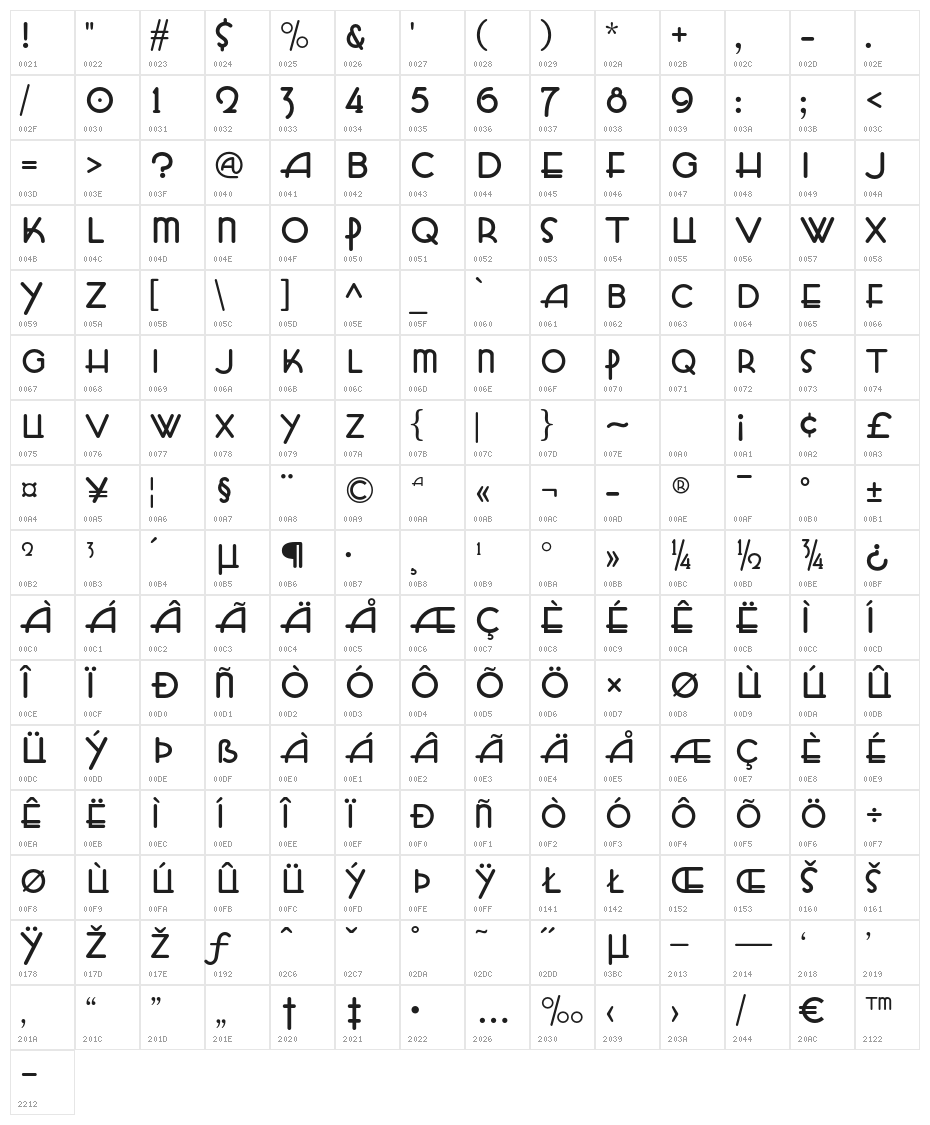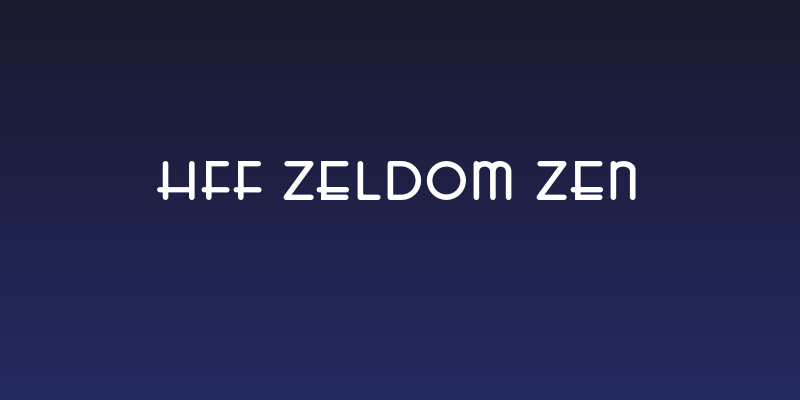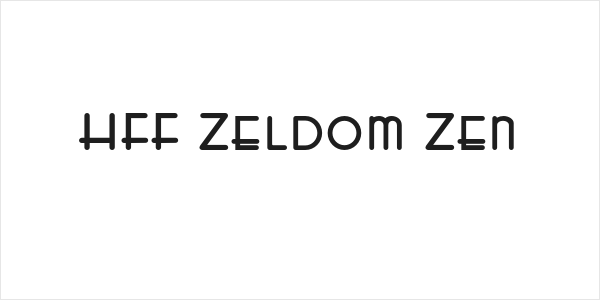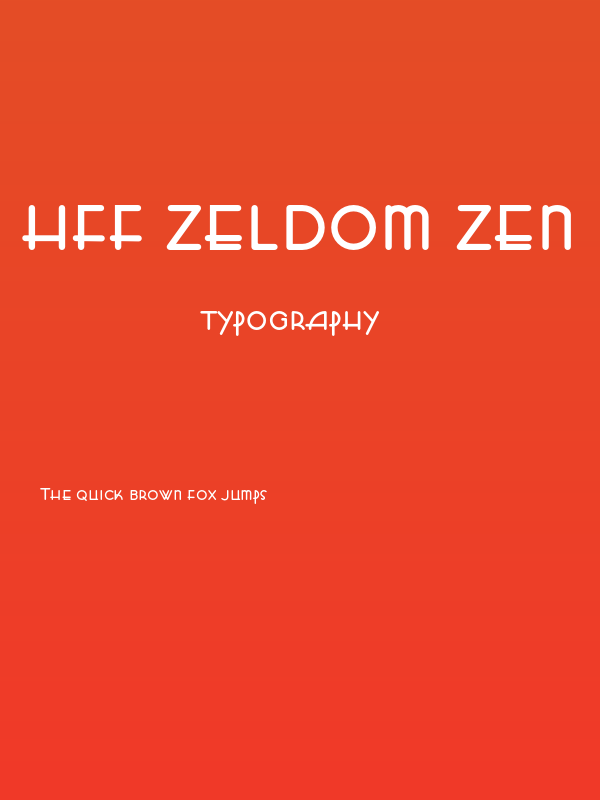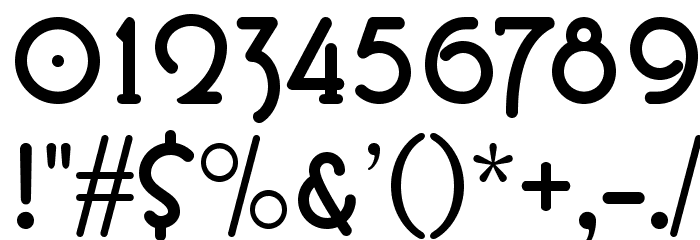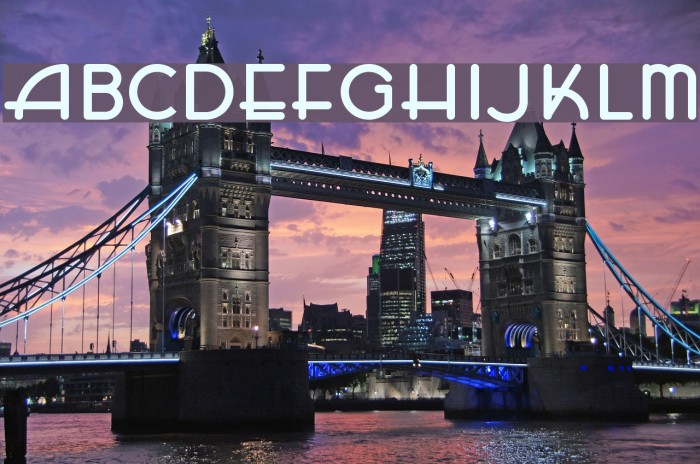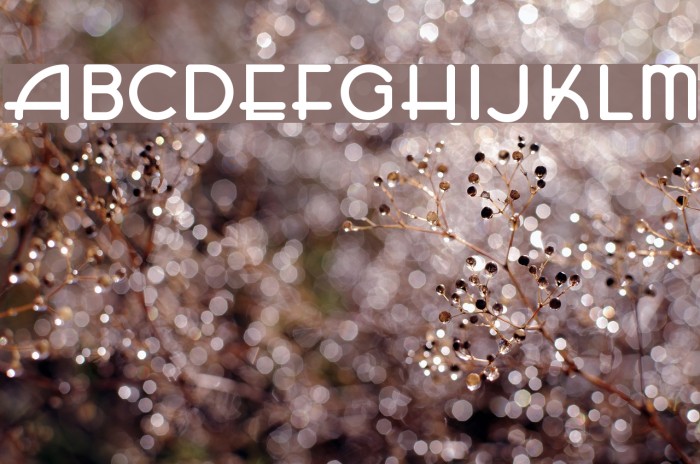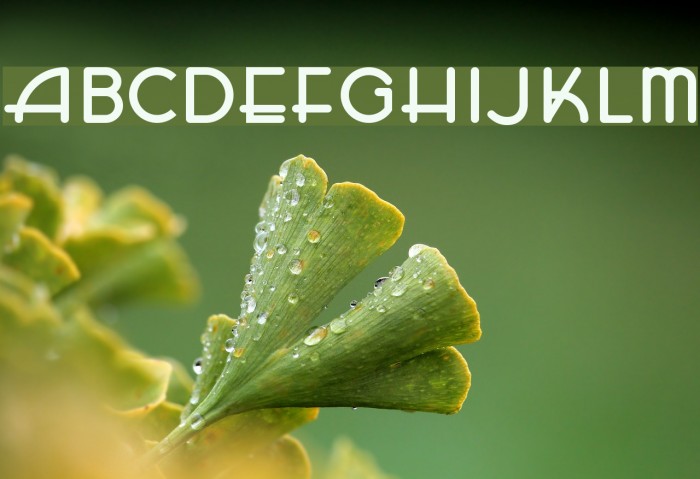
HFF Zeldom Zen Font
HFF Zeldom Zen Description
This font features a unique and playful design with a modern twist. The characters are bold and rounded, with a consistent stroke width that gives it a clean and approachable appearance. The uppercase letters have a distinctive geometric style, while the lowercase letters maintain a similar aesthetic with slight variations in form. The numerals are clear and easy to read, complementing the overall style of the font. Special characters are creatively designed, adding to the font's charm. This font is ideal for projects that require a fun and engaging look.
| Proposed Projects | Ideal for children's books, playful branding, posters, and creative digital content. |